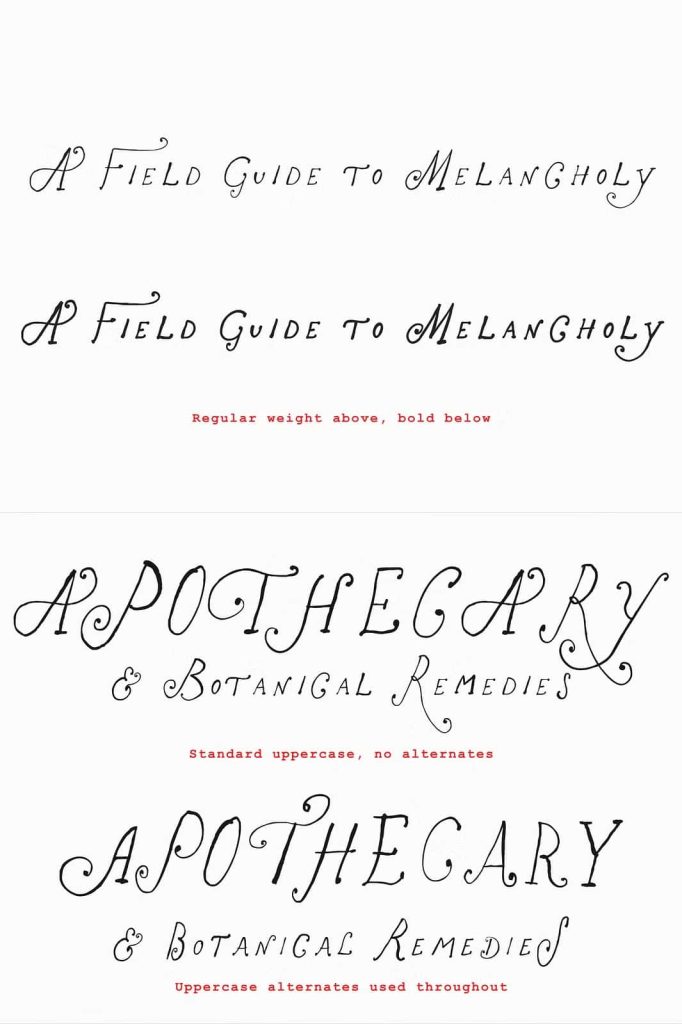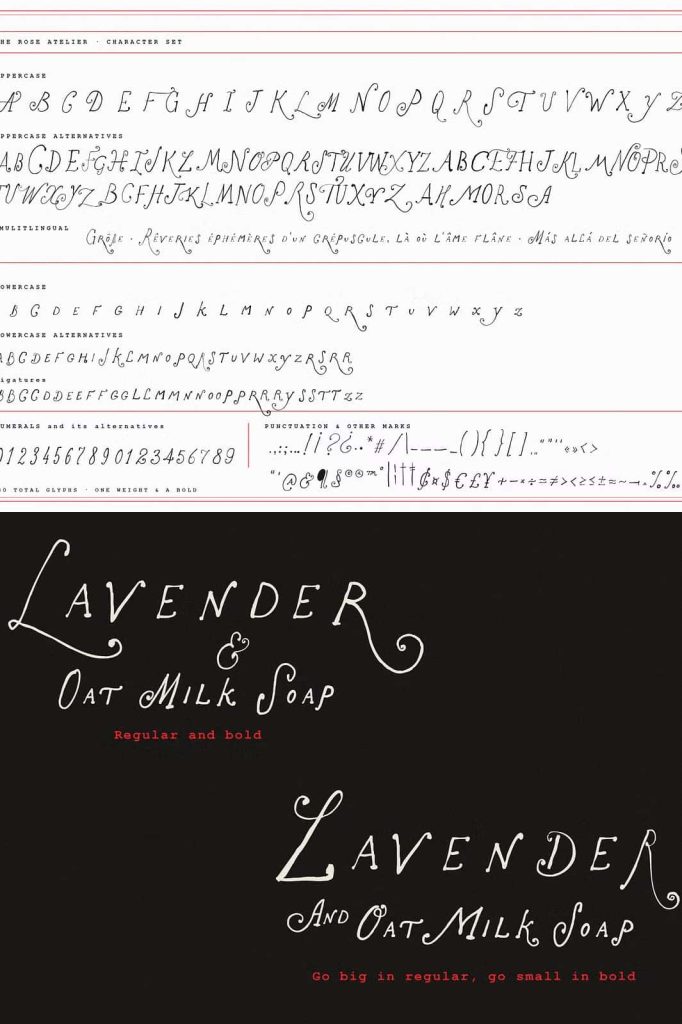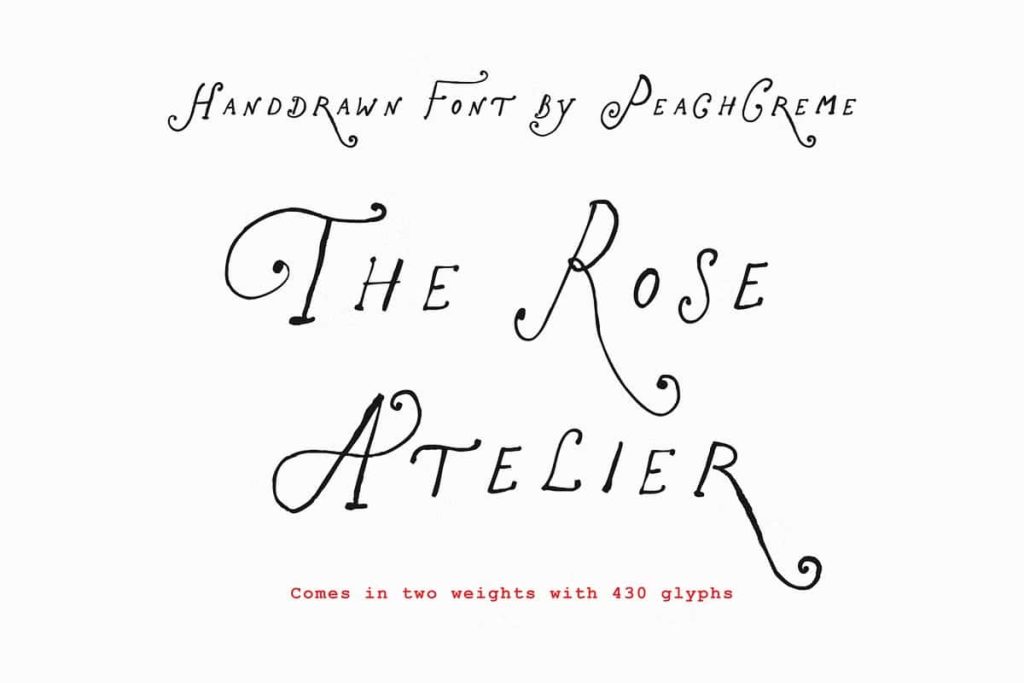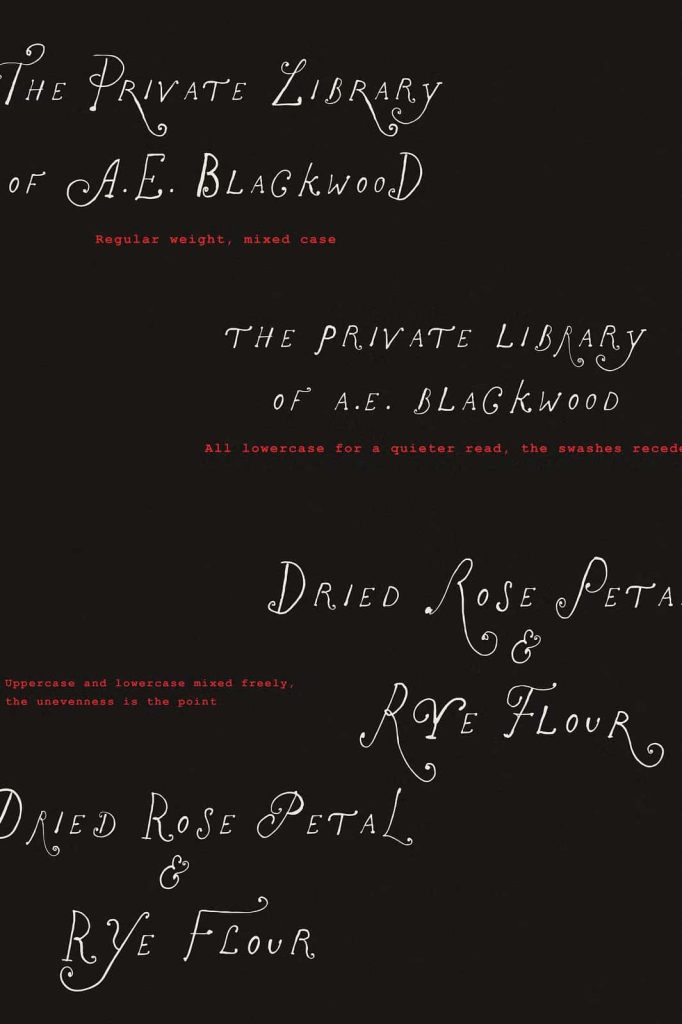
The Rose Atelier Hand Drawn Font
The Rose Atelier Hand Drawn Font is a beautifully crafted display typeface designed to bring warmth, elegance, and personality to every creative project. Featuring naturally hand-drawn letterforms and graceful curly flourishes on its uppercase characters, this font captures the charm of handmade typography while maintaining excellent readability. Every character feels thoughtfully illustrated, making your designs appear more personal, artistic, and memorable.
Unlike conventional display fonts that rely on repetitive letterforms, The Rose Atelier offers a second complete alternate alphabet along with decorative variants for selected letters. This gives designers the freedom to mix and match characters within the same word, creating typography that looks genuinely handcrafted instead of digitally repeated. Whether you are designing elegant branding materials, wedding stationery, boutique packaging, or social media graphics, this font provides the flexibility to create unique compositions with ease.
A Hand-Drawn Font Filled with Character
The Rose Atelier celebrates the natural beauty of hand lettering. Every letter showcases subtle imperfections that imitate the authentic movement of pen and ink, giving your typography a soft and inviting personality. These carefully designed details prevent your text from appearing overly mechanical while adding a refined artistic touch.
The decorative curls featured on the capital letters instantly attract attention without overwhelming the overall design. These flourishes introduce sophistication while maintaining excellent balance, making headlines and titles feel graceful and expressive.
Because each letter has been thoughtfully illustrated, The Rose Atelier delivers the charm of traditional hand lettering while offering the convenience and consistency of a professional digital font.
Create More Natural Typography with Alternate Characters
One of the most distinctive features of The Rose Atelier Hand Drawn Font is its extensive collection of alternate characters. The font includes an additional complete alphabet together with decorative alternatives for selected letters, allowing designers to avoid repetitive typography.
Instead of using identical letterforms throughout a word, you can alternate characters to create subtle variation and a more authentic handwritten appearance. This feature is especially valuable for logos, product packaging, invitations, greeting cards, and branding projects where originality plays an important role.
The ability to combine different character styles gives every design a custom-made look without requiring manual lettering or illustration.
Perfect for Elegant and Creative Design Projects
The Rose Atelier adapts beautifully across a wide variety of creative applications. Its combination of artistic lettering and decorative flourishes makes it suitable for projects that demand warmth, sophistication, and individuality.
Branding and Logo Design
Create memorable brand identities with typography that feels handcrafted and premium. The Rose Atelier helps boutique businesses, artisan brands, florists, cafés, beauty products, fashion labels, and lifestyle companies establish a distinctive visual identity.
Wedding Invitations and Stationery
The romantic curves and elegant decorative capitals make this font an excellent choice for wedding invitations, save-the-date cards, bridal shower invitations, thank-you cards, menus, and personalized stationery.
Packaging and Product Labels
Enhance product packaging with typography that communicates quality and craftsmanship. Handmade goods, candles, cosmetics, skincare products, gourmet foods, and gift collections all benefit from the welcoming appearance of The Rose Atelier.
Social Media Graphics
Create eye-catching Instagram posts, Pinterest graphics, promotional banners, seasonal campaigns, and digital advertisements that immediately capture attention through expressive lettering.
Editorial and Print Design
Use The Rose Atelier for magazine covers, book titles, posters, greeting cards, journals, calendars, and creative publications where decorative typography becomes an essential visual element.
Balanced Beauty and Readability
Although The Rose Atelier features decorative flourishes and artistic details, it maintains excellent readability for display purposes. The carefully balanced spacing and thoughtfully proportioned letterforms ensure that headlines remain clear while still delivering visual impact.
The decorative uppercase characters add elegance without sacrificing legibility, allowing designers to create sophisticated layouts that remain easy to read across both print and digital formats.
Whether used for large headlines or short promotional text, the font maintains its handcrafted beauty while presenting information clearly.
Bring Personality to Every Design
Many display fonts offer beautiful letterforms but quickly become repetitive when used in longer words or repeated headlines. The Rose Atelier solves this challenge through its alternate alphabet and decorative character variations, allowing designers to create more dynamic and authentic typography.
If you want typography that feels expressive, personal, and beautifully handcrafted, The Rose Atelier Hand Drawn Font is an excellent choice. Its graceful decorative details, customizable alternate characters, and timeless handmade aesthetic give every design a refined, memorable, and authentic visual voice that stands out across both print and digital media.